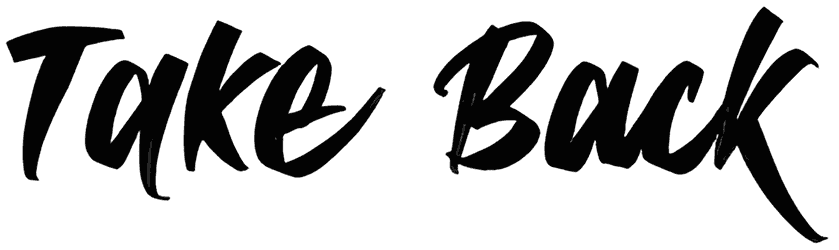
Take Back Font
When you set a modern and smooth brush font on your text, it can communicate well with your followers. The Take Back font’s letters have a natural and urban mood that could be perfect for many layouts such as a café board. Apply the Take Back font on your new project and highlight your creativity.